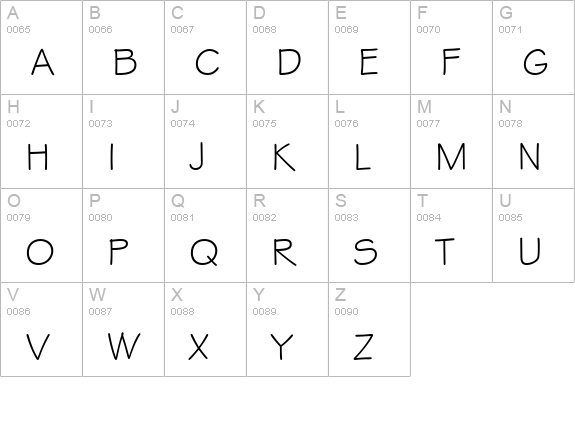
Introducing the captivating Stylus font, a modern and versatile typeface that effortlessly blends sophistication with a touch of elegance. With its sleek lines and balanced proportions, Stylus is the perfect choice for projects seeking a clean and contemporary aesthetic. This unique font exudes professionalism and refinement, making it ideal for a wide range of design applications. The best part? Stylus font is completely free to download at FontsMarket.com! Take advantage of this amazing opportunity to enhance your projects with a premium-quality font that will elevate your designs to new heights. Whether you're creating branding materials, invitations, or website graphics, Stylus font is sure to make a lasting impression. Don't miss out on this incredible offer to add Stylus font to your font collection today. Download it for free at FontsMarket.com and unlock endless possibilities for your design projects.